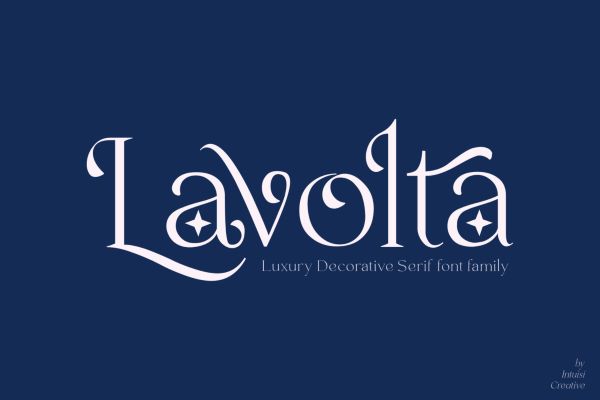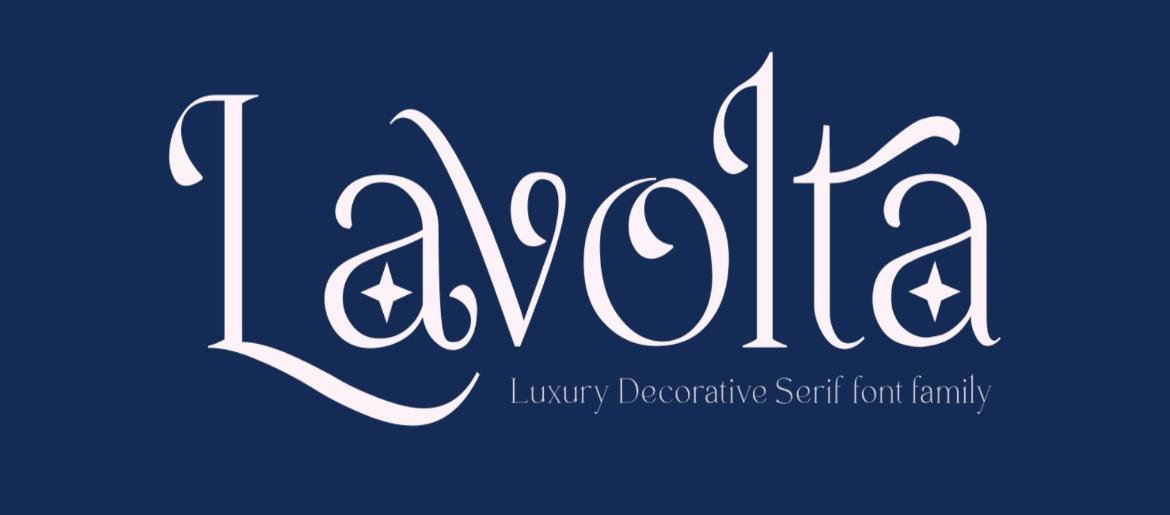
Lavolta Font
Lavolta by Intuisi Creative is a fancy and functional modern vintage serif font family that covers an impressive range of typographic moods within a single cohesive system. The standard Lavolta brings a clean, modern elegance suited to invitations, product branding, and editorial work. Lavolta Swash extends that with a slightly vintage character and over 130 alternative characters, activated through contextual alternates that make extended text effortless. A generous, well-crafted family offered as a free demo for personal use.